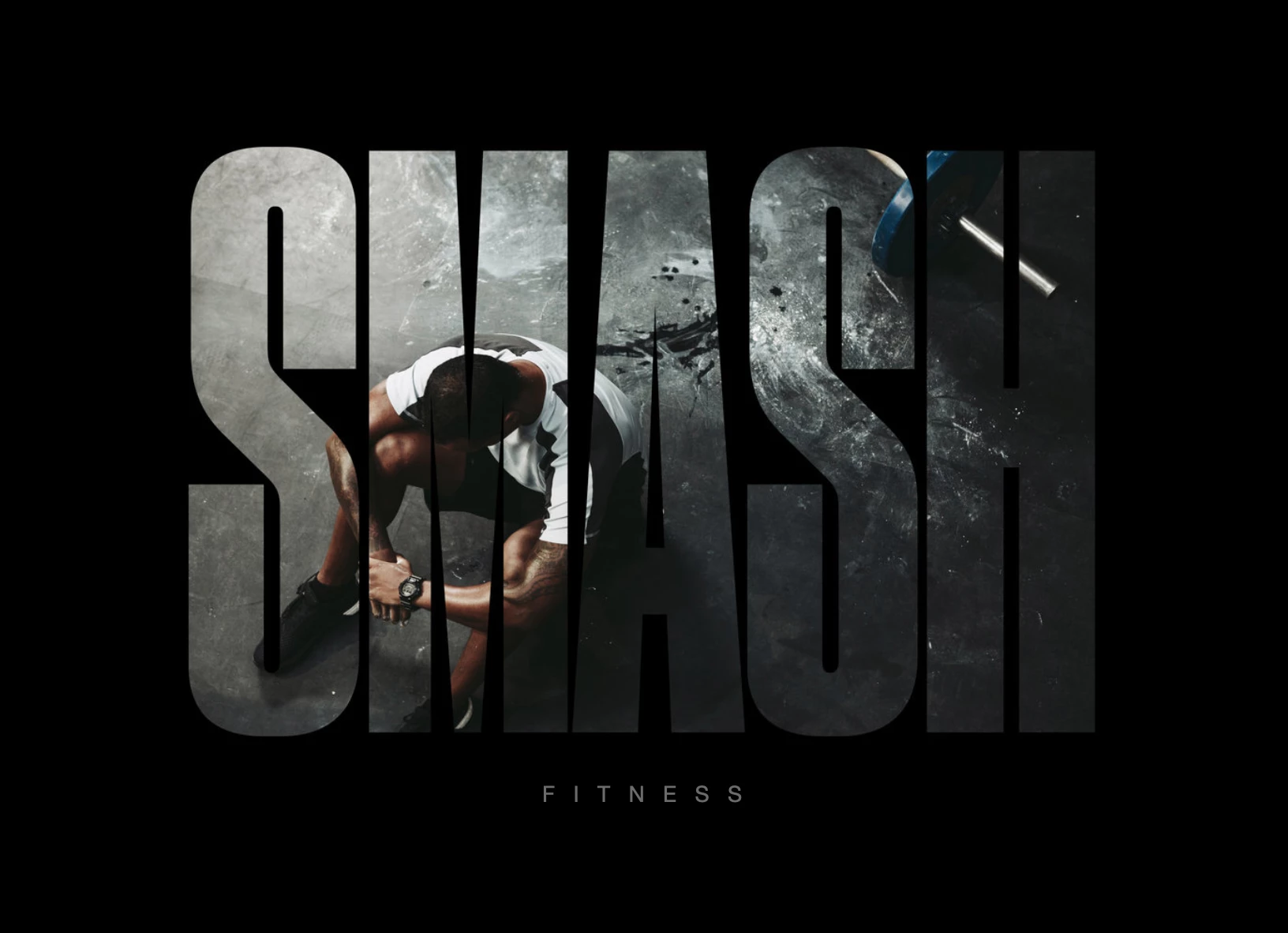
How can I find a font like this?
Does anyone know where I can find a font like this that has very little negative space? I'd like to use it as a cut out over an image, as shown. Thanks for any help!